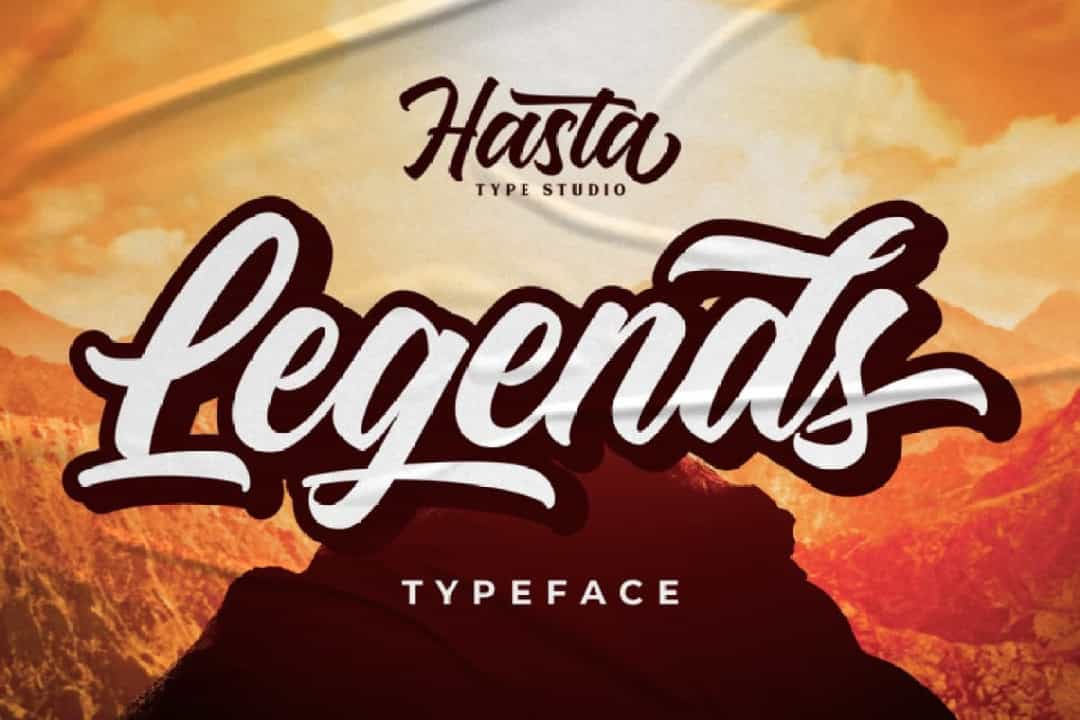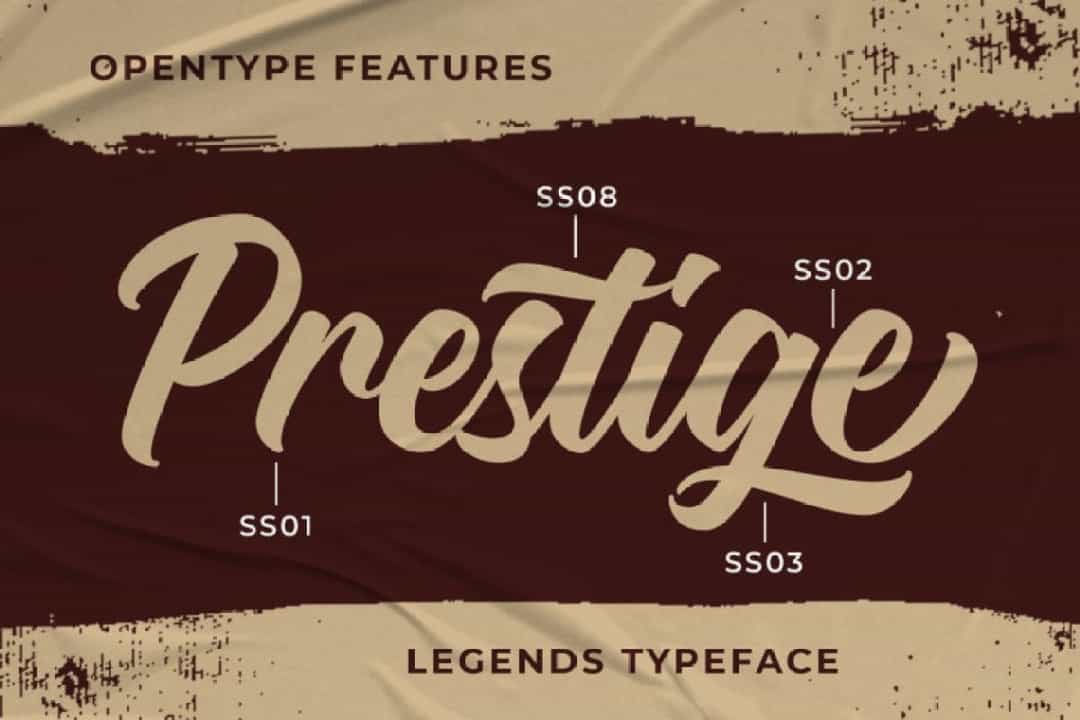
Legends is a real and tendentious handwritten font, which will be perfect for various types of logos, branding packaging designs, T-shirt prints and many other productions. Every curve that I draw has my handy work as I manually use a brush pen to write out each curve.